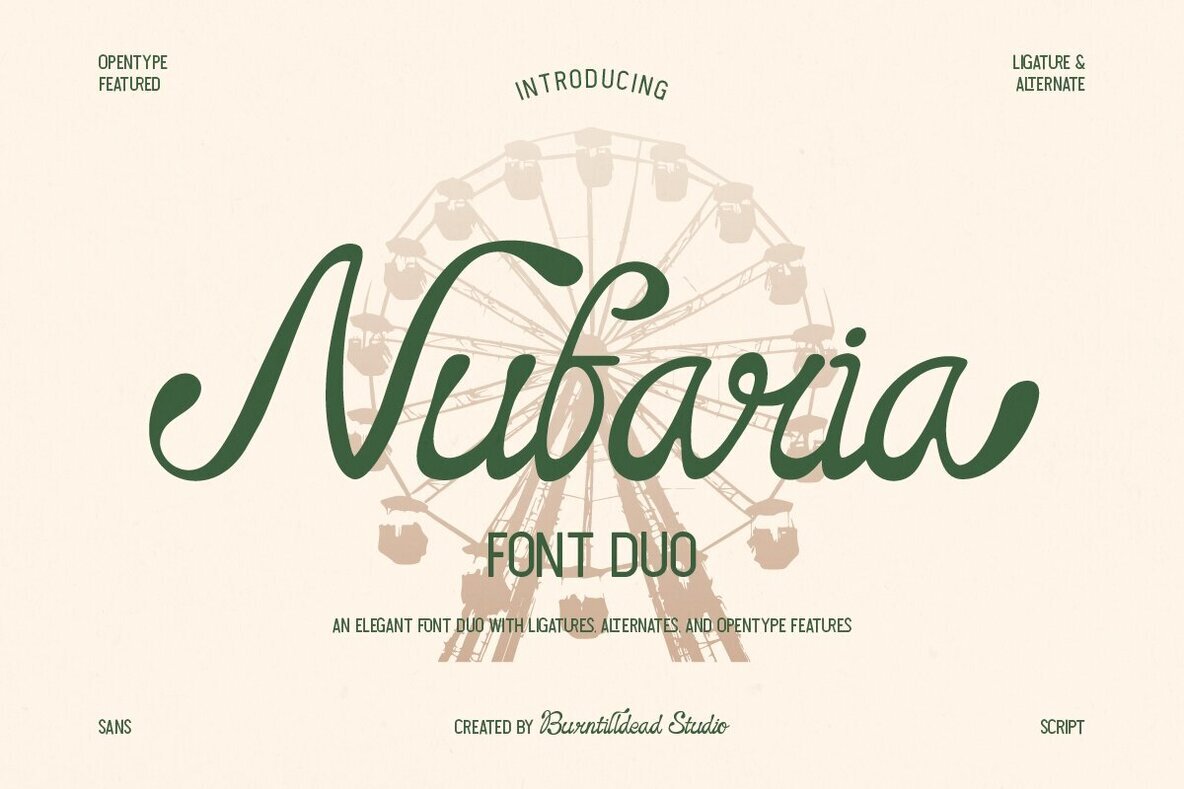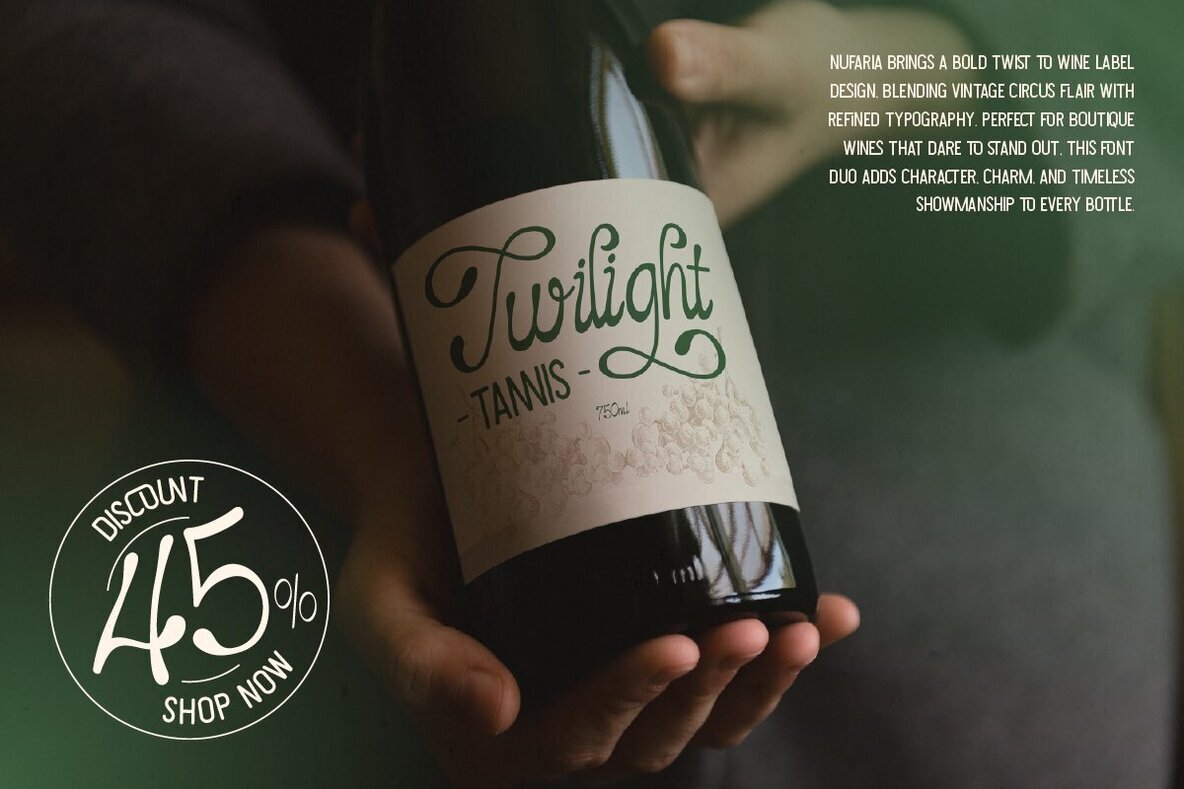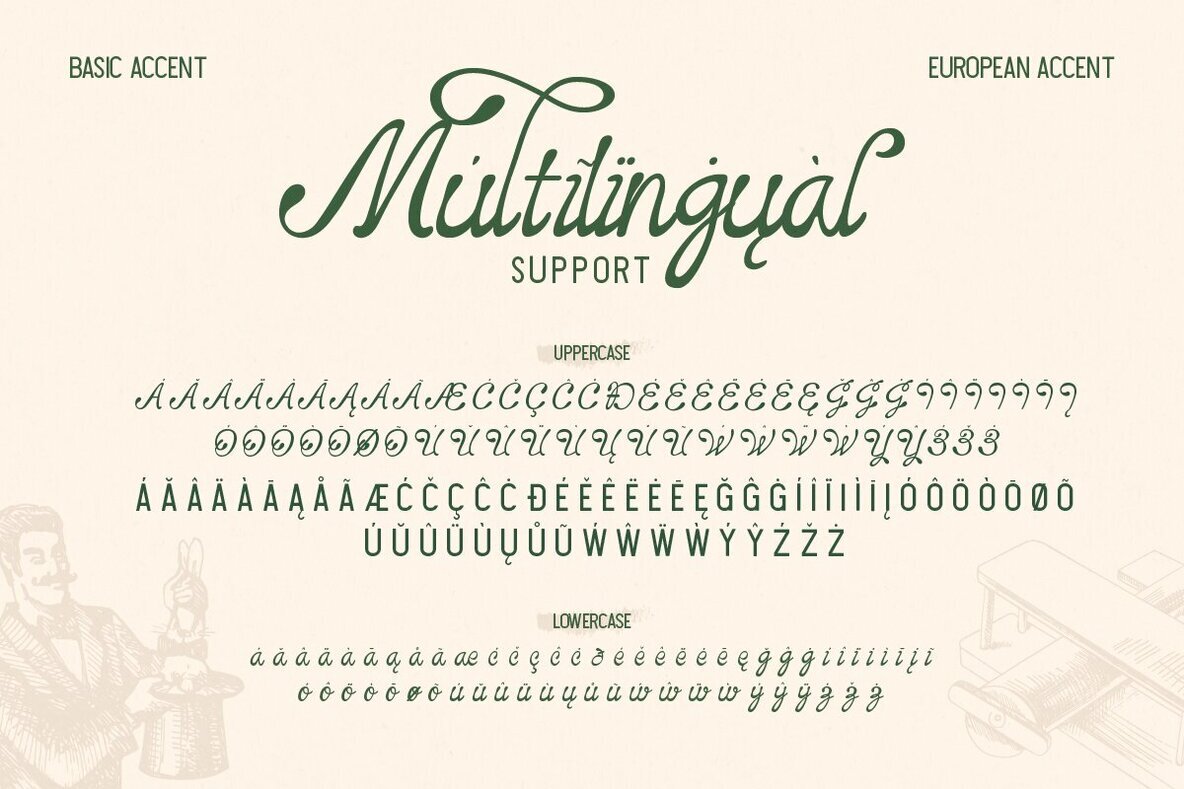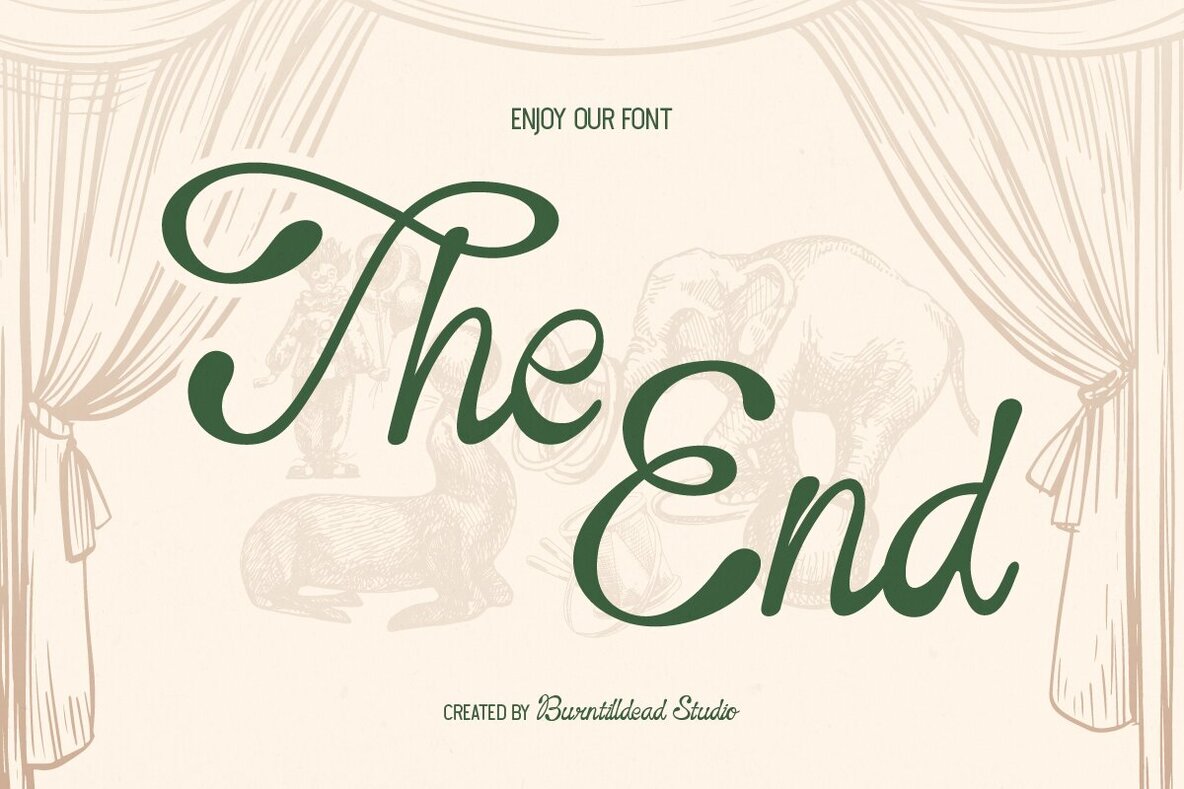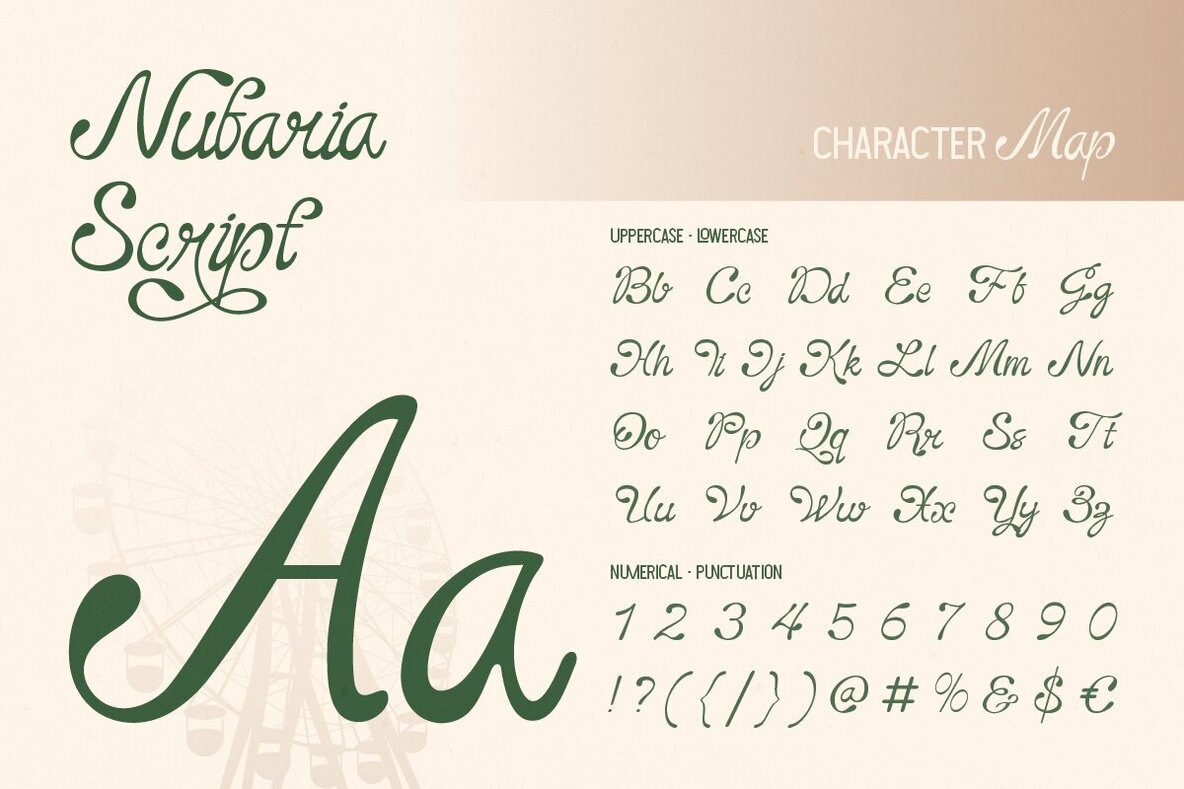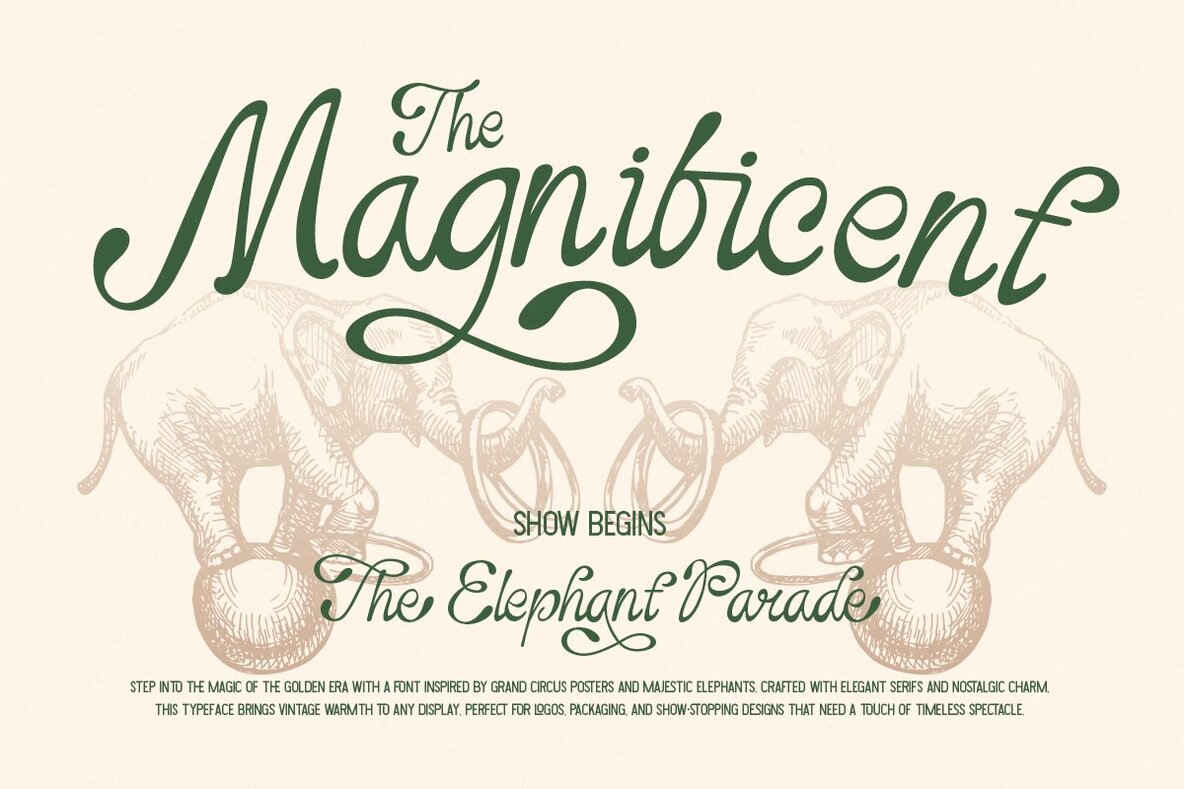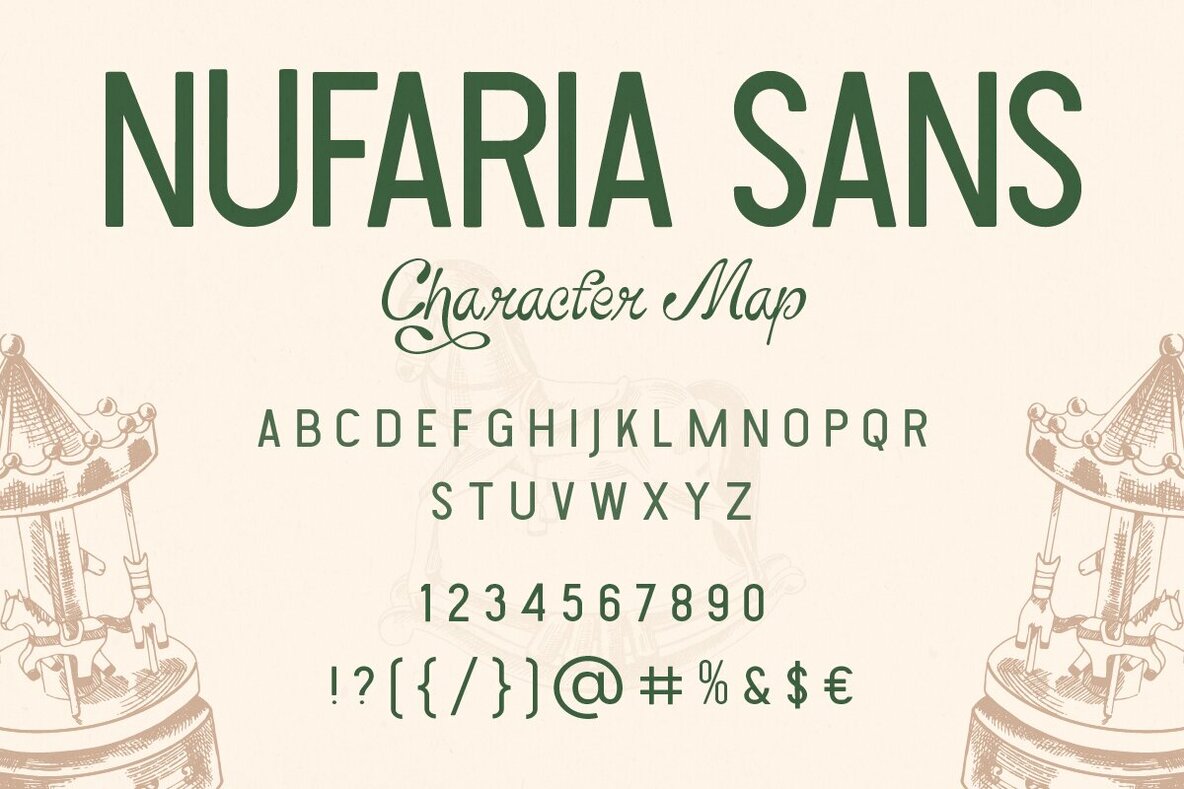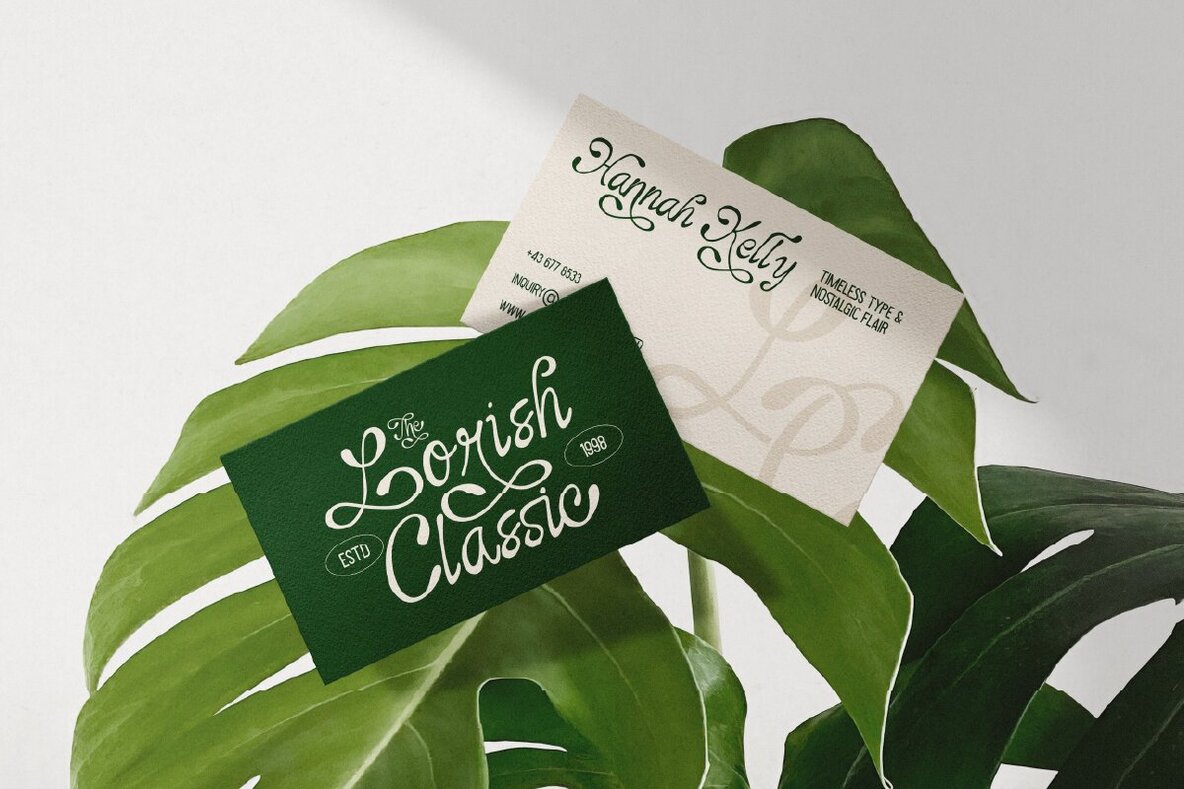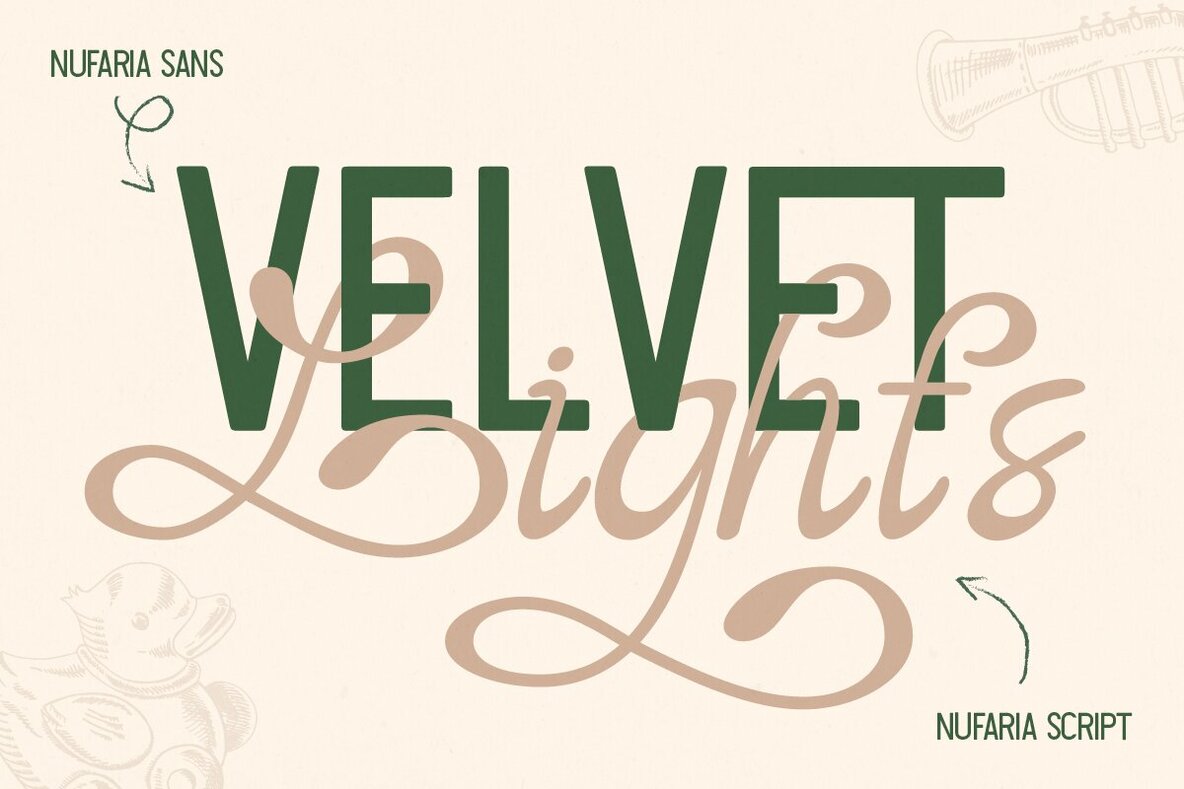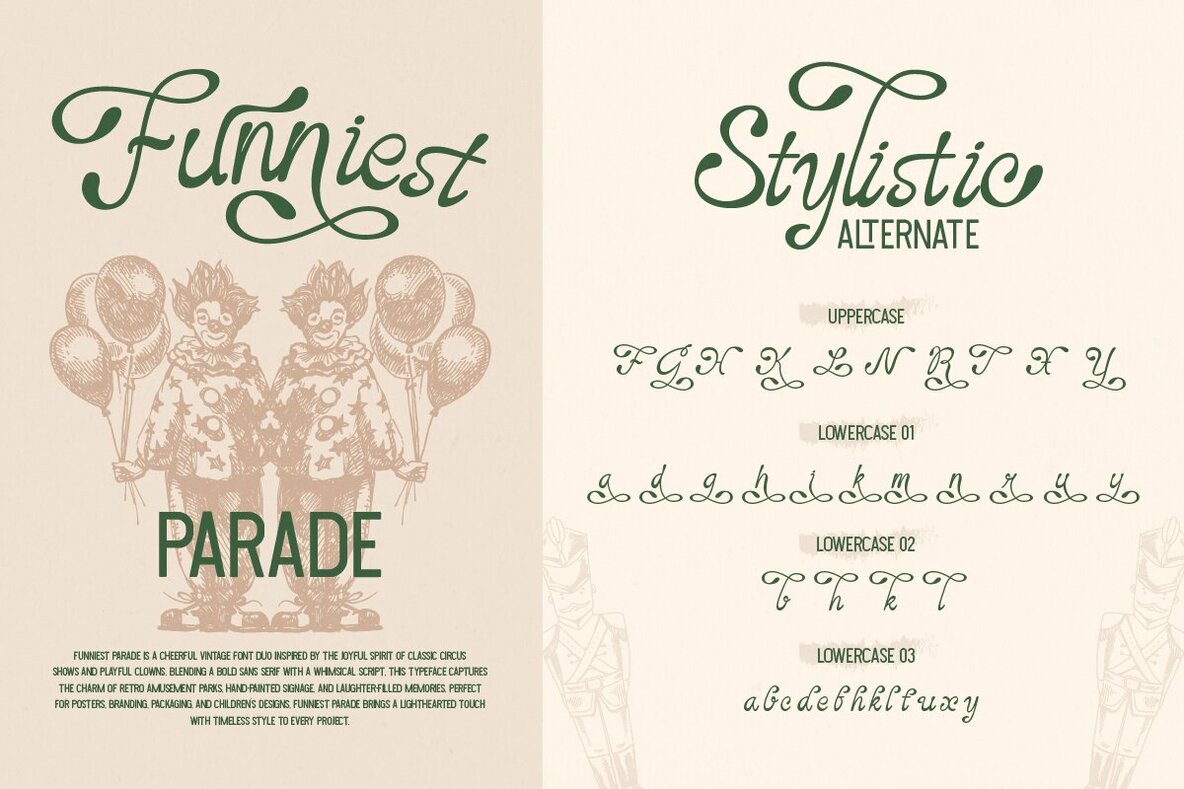
Nufaria Font
Nufaria Sans
Nufaria Script
Introducing Nufaria, a captivating font duo that seamlessly blends retro charm with modern clarity. This beautiful pairing draws inspiration from vintage Hawaiian posters, infusing your designs with a timeless summer vibe. The Nufaria Script offers smooth curves and graceful ligatures, complete with OpenType alternates for a sophisticated handwritten touch. Complementing the script, Nufaria Sans provides a structured, all-caps design, making it ideal for both headlines and body text. This versatile duo is perfect for wedding invitations, branding logos, product packaging, and festival posters. Whether crafting greeting cards, social media posts, or handcrafted labels, Nufaria adapts to vintage and tropical-inspired themes effortlessly. It's the perfect choice for cafe branding, bakery signage, or ice cream shop graphics.Nufaria Font Duo